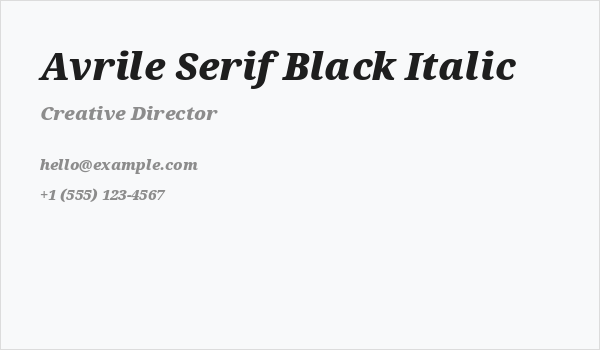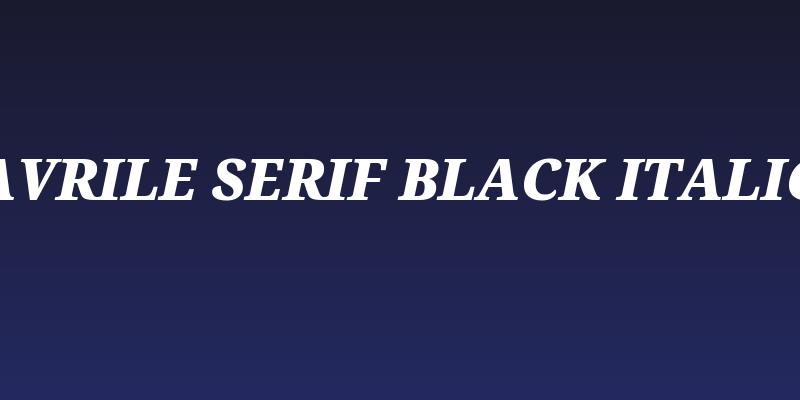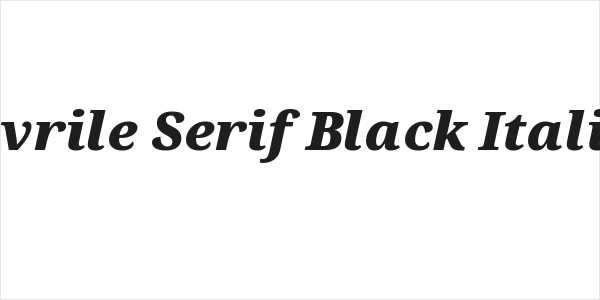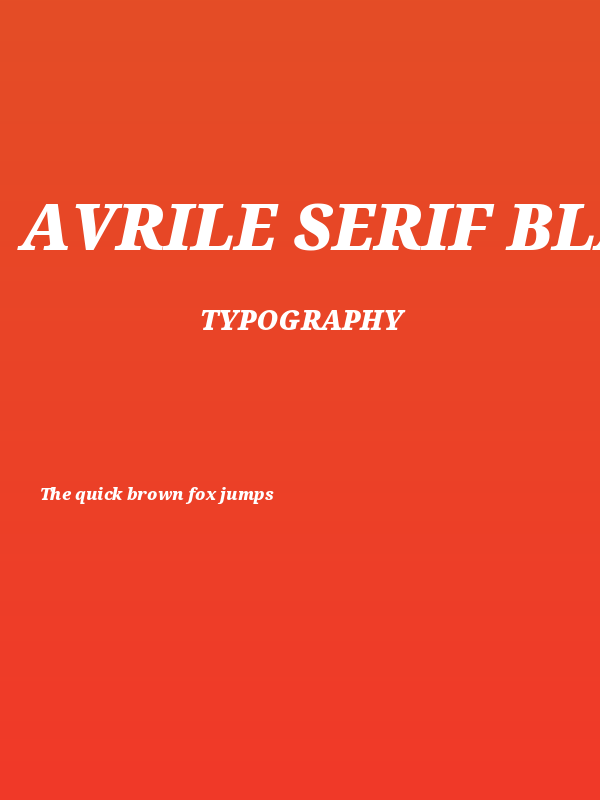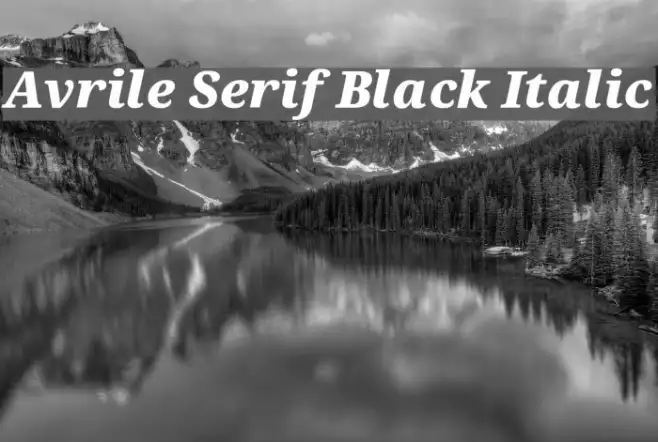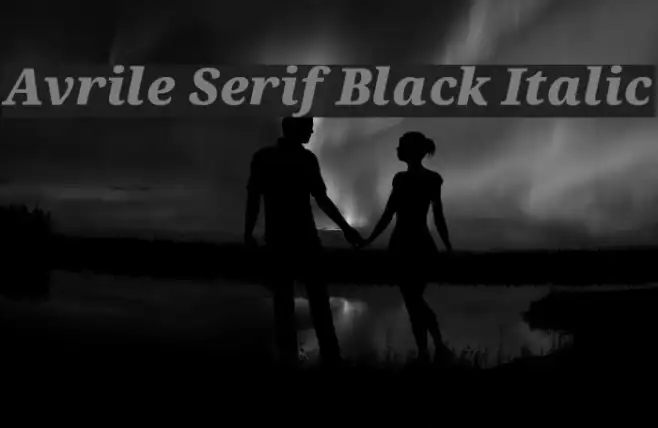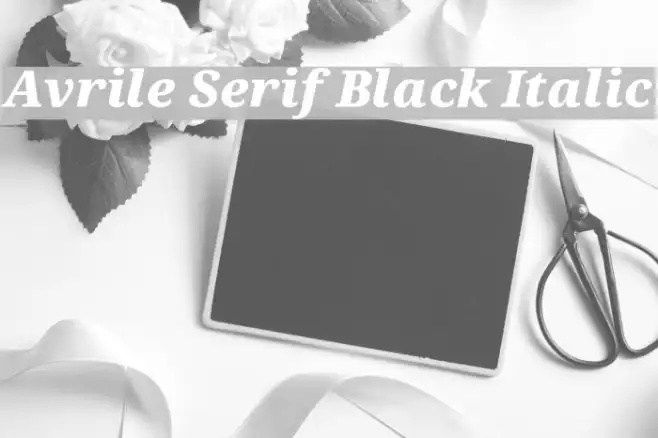
Avrile Serif Black Italic Font
Avrile Serif Black Italic Description
This font exudes a classic elegance with its serif design, characterized by bold and italicized strokes that convey a sense of sophistication and authority. The uppercase letters are strong and commanding, while the lowercase letters maintain a graceful flow. The numerals are robust, ensuring clarity and impact. Special characters are crafted with attention to detail, enhancing the font's versatility. The italic slant adds a dynamic touch, making it suitable for both formal and creative applications. Its bold weight ensures it stands out, making it ideal for headlines and titles.
| Proposed Projects | Ideal for book covers, editorial headlines, branding, and luxury product packaging. |